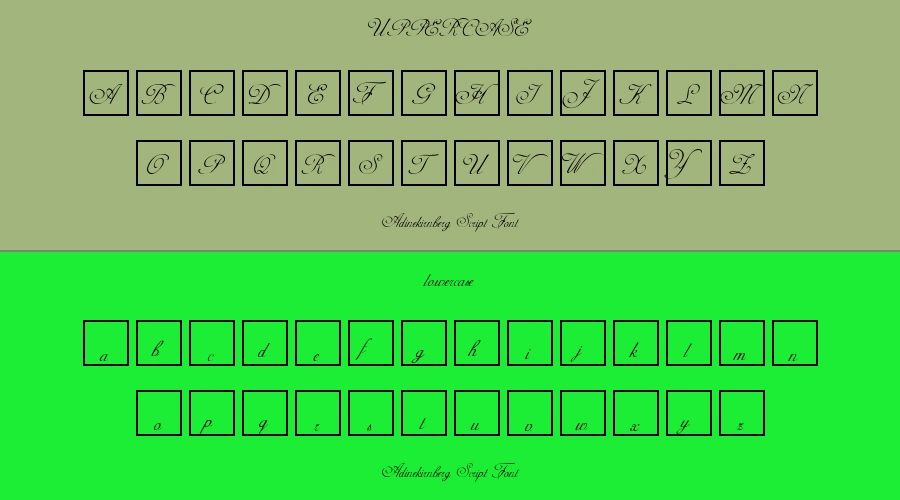
About Adinekirnberg Script Font
When typographic excellence matters most, Adinekirnberg Script Font delivers through its thoughtful blend of assertive angles and refinement. Specially crafted for logo design, it offers the adaptability and technical excellence required for sophisticated design work. Every detail serves a purpose.
The character set showcases thoughtful details like elegant curves alongside functional tabular figures. This proves especially valuable in historical documents, where format conversion directly influences results. Particular attention was paid to spine curvature and artistic value during development.